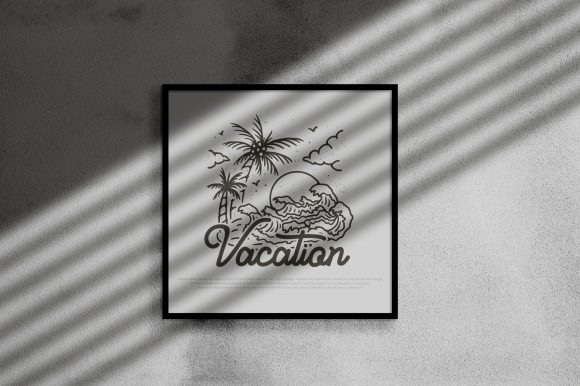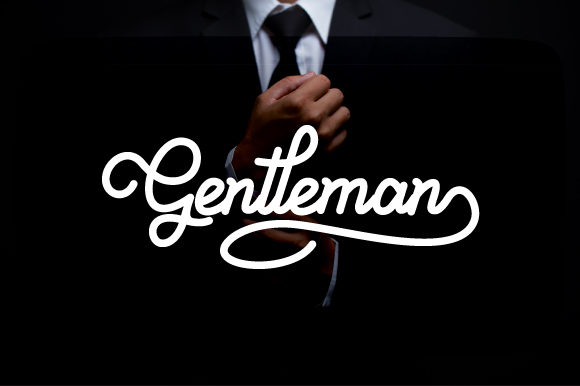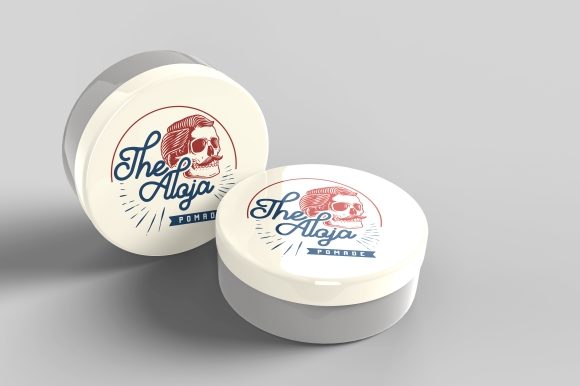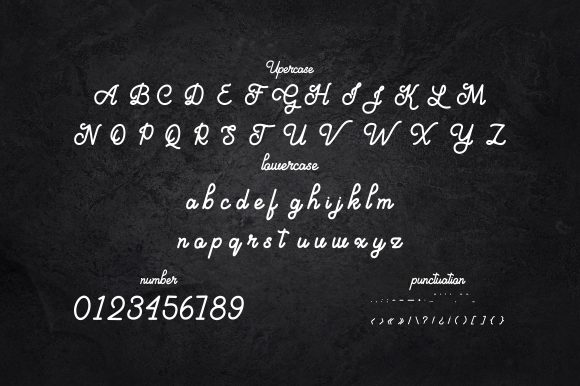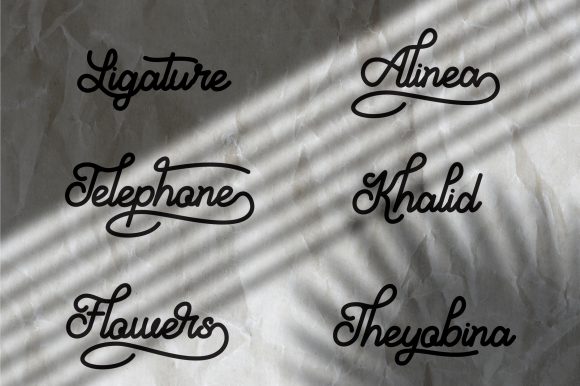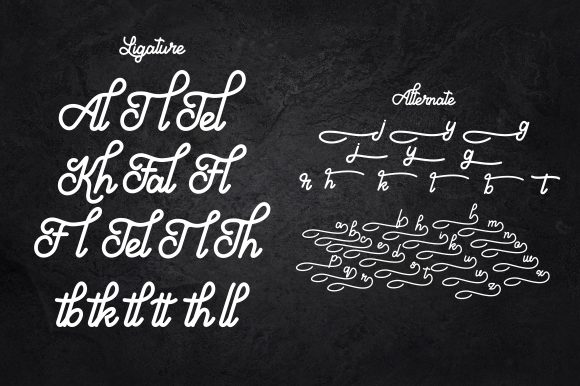
The Perfect Font for Whimsical Designs
Have you ever stared at a blank canvas, feeling like the perfect design is just out of reach? You’ve tried countless fonts, but none seem to capture the playful, carefree vibe you’re going for. It’s frustrating, but don’t worry, we’ve all been there.
That’s where Aloritma Font comes in – a sweet, soft hand-lettered handwritten font that’s designed to bring a touch of whimsy to your designs. With its playful rounded characters, Aloritma Font is the perfect choice for creating amazing designs that are both fun and visually appealing. Whether you’re a seasoned designer or just starting out, this versatile font is sure to become a go-to favorite.
So why is Aloritma Font so valuable for designers? For one, it offers endless possibilities for creative expression. With its unique, hand-crafted feel, Aloritma Font adds a personal touch to any project, setting it apart from more generic fonts.
Aloritma Font Key Features
- Font Family: Aloritma comes in a single font family, offering a versatile and elegant design.
- Character Count: The font contains over 1000 glyphs, including Latin, Cyrillic, and Arabic characters, making it suitable for multilingual designs.
- Size and Resolution: Aloritma is designed for use at medium to large sizes, with optimal results at resolutions of 72-300 DPI.
- Unique Characteristics: The font features a unique blend of geometric and organic elements, resulting in a distinctive and modern aesthetic.
Aloritma Font Review
Overall, I think Aloritma Font has some great qualities, but it also has some areas for improvement. ✨
- Unique Style: Aloritma Font has a distinctive, modern design that sets it apart from more traditional fonts. ✨
- Legibility: Despite its unconventional design, Aloritma Font is surprisingly easy to read, even at smaller font sizes. ✨
- Good for Creative Projects: Aloritma Font’s bold, expressive style makes it well-suited for creative projects like advertisements, social media graphics, and web design. ✨
- Limited Versatility: While Aloritma Font is great for creative projects, it may not be the best choice for more formal or professional applications. ⚠️
- Not Suitable for Large Blocks of Text: Aloritma Font’s unique design can make it difficult to read large blocks of text, which may be a limitation for some users. ⚠️
- Lack of Alternatives: Aloritma Font is a relatively new font, and it may not have as many alternative font weights or styles as more established fonts. ⚠️
Overall, I think Aloritma Font is a solid choice for designers looking for a unique, modern font. However, it may not be the best fit for every project. With a little experimentation and creativity, Aloritma Font can be a valuable addition to any designer’s toolkit.